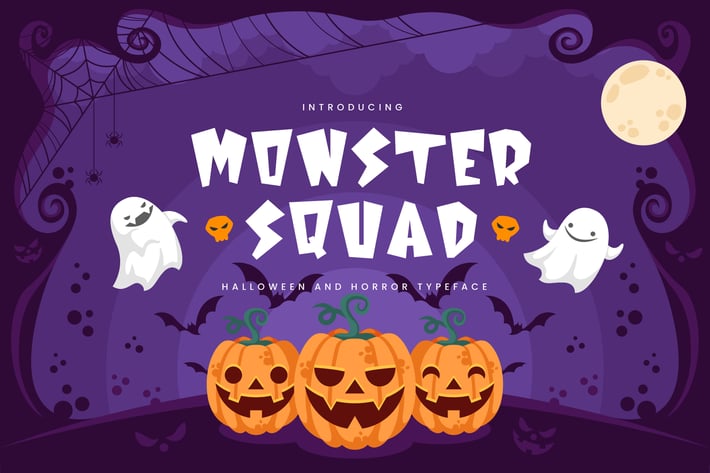
Monster Squad - Fun Halloween Typeface
Are you looking for a bold and fun font for children and halloween event? We can help! Try to download our Monster Squad font. The font is suitable to use for casual purpose especially children related occasion and halloween :) Oh yeah we forgot to mention that we give you 5 cute halloween monster vector objects for free too in Adobe Illustrator format!